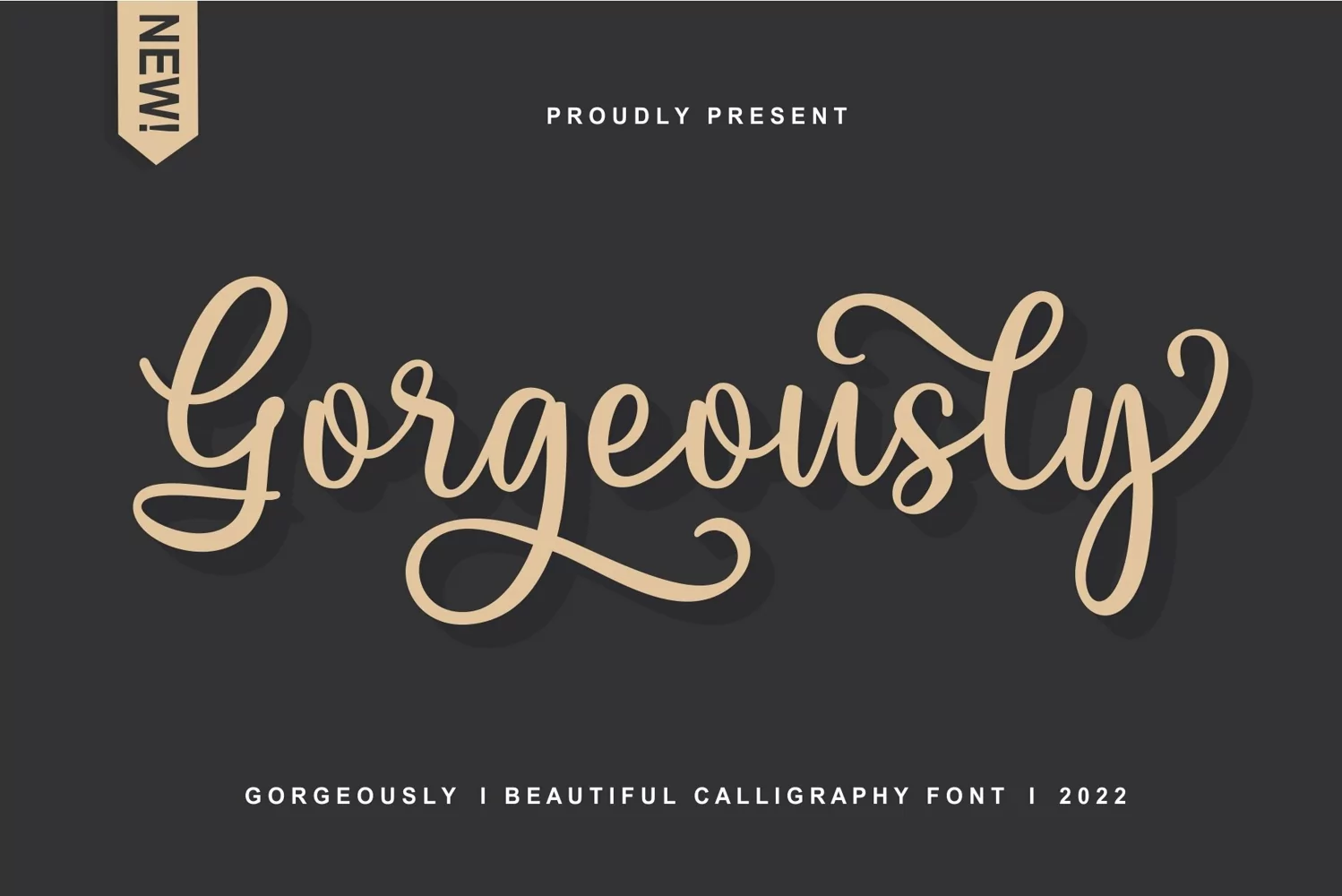
Gorgeously - Beautiful Calligraphy Font
Gorgeously is a Beautiful calligraphy font perfect for crafting, branding, invitation, stationery, wedding designs, social media posts, advertisements, product packaging, product designs, label, Posters, photography, special events, or anything.
Font Features :
- Swash
- Ss01